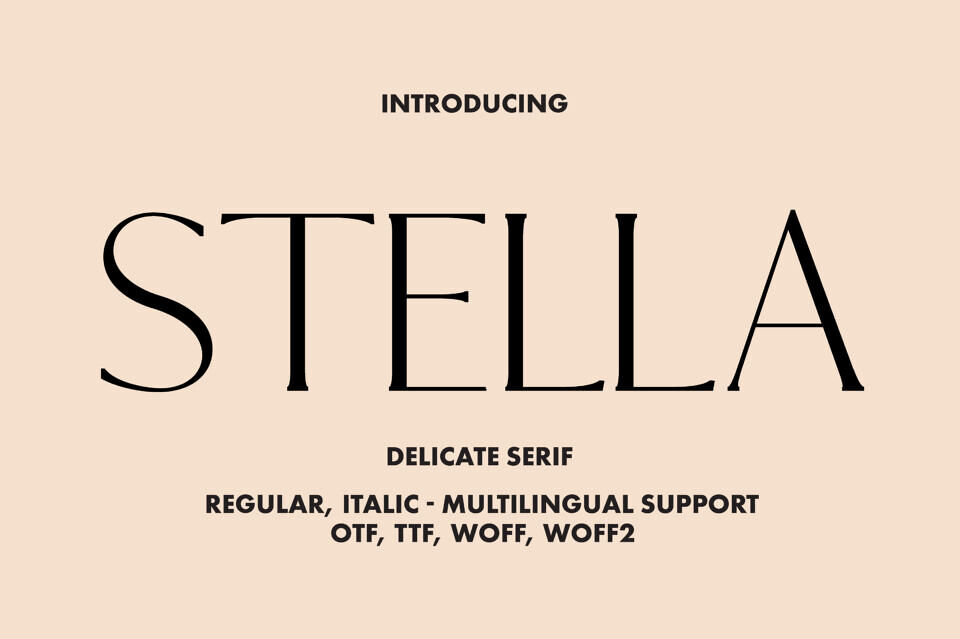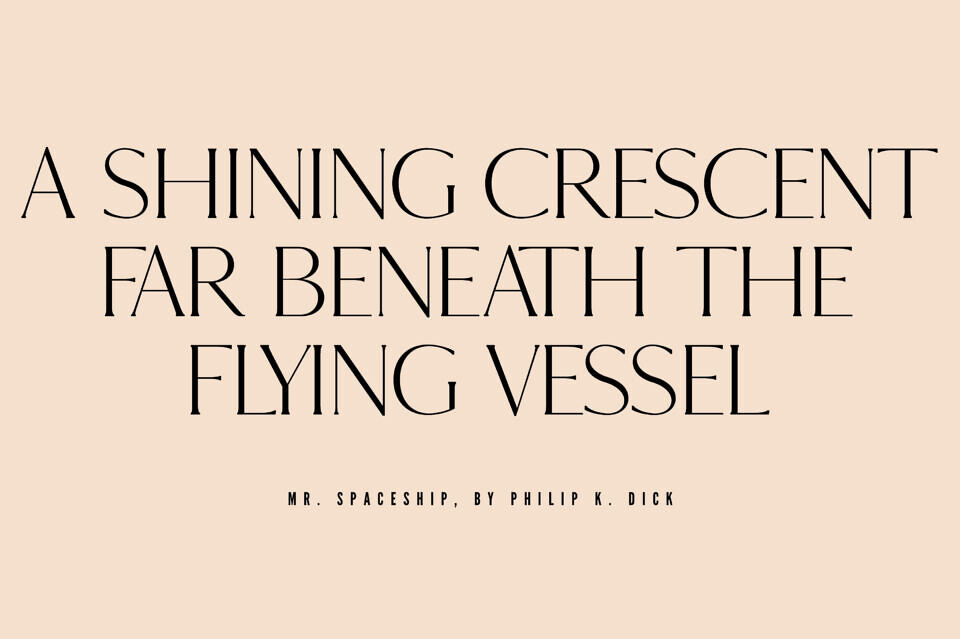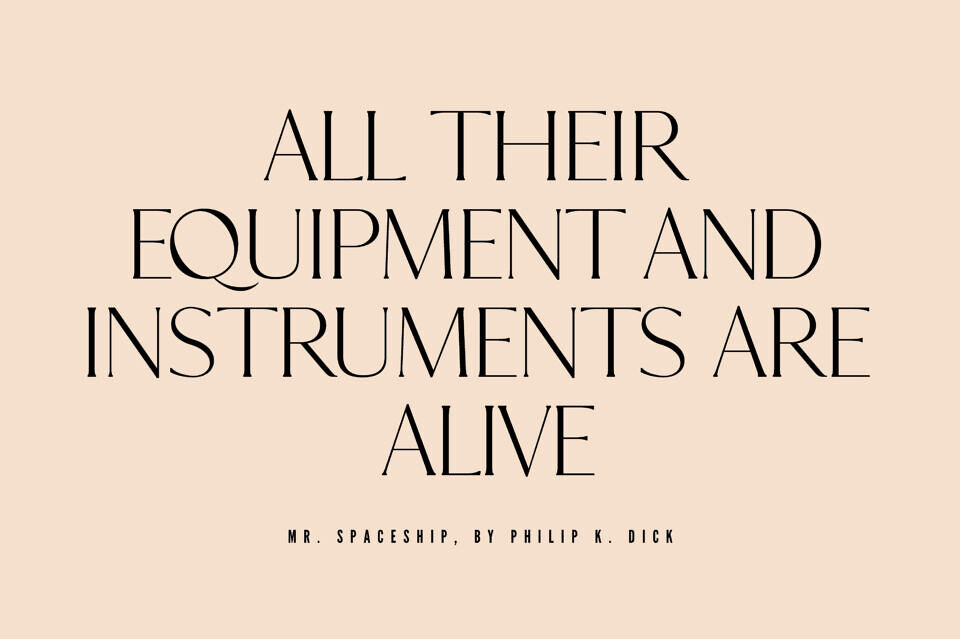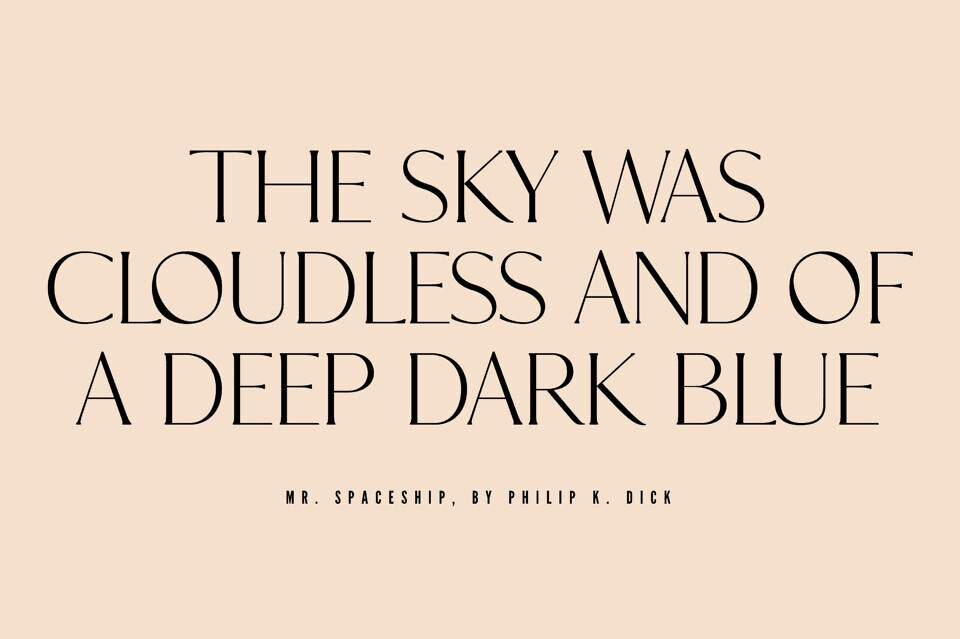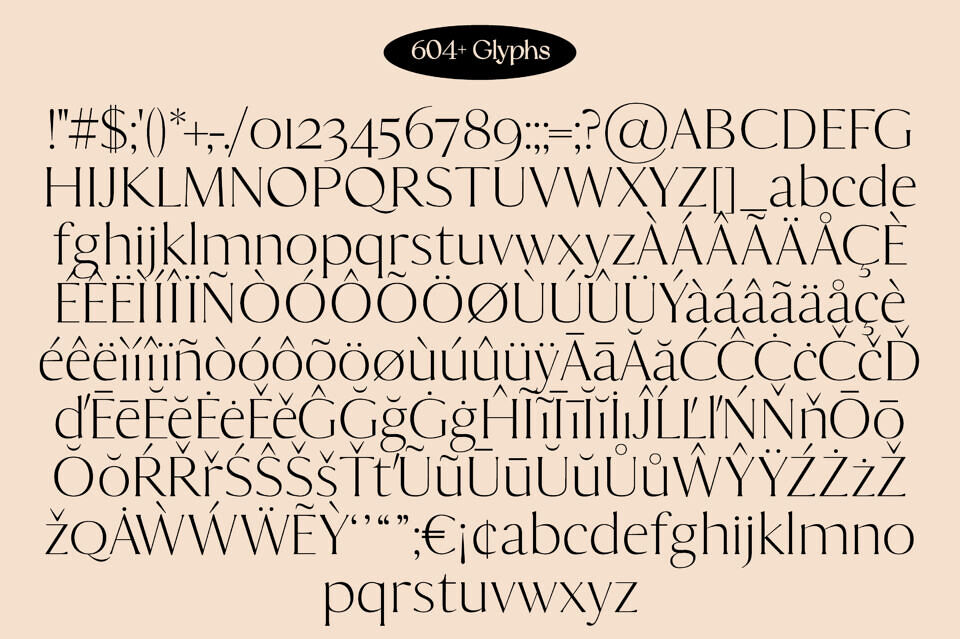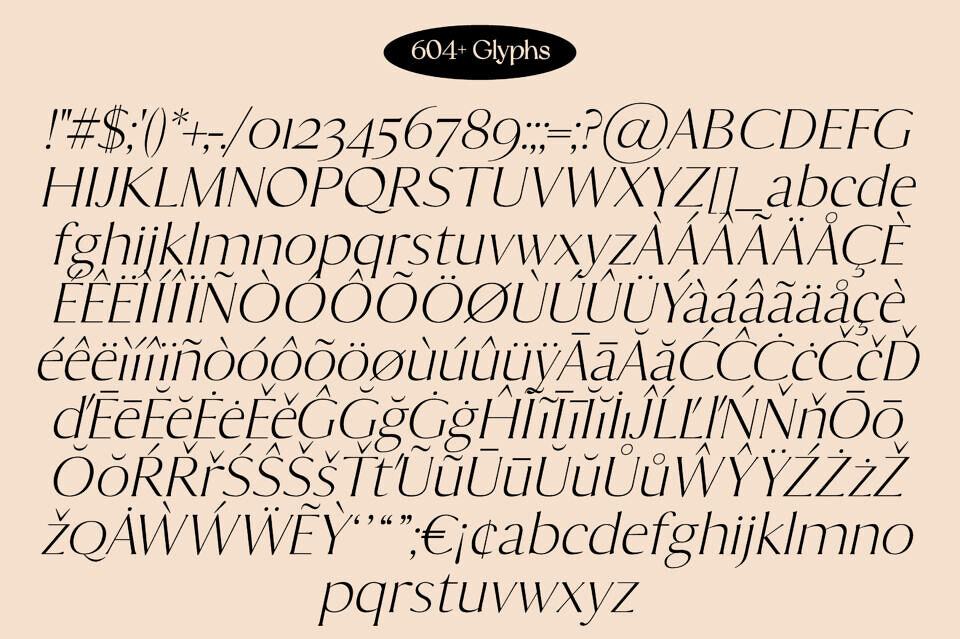
Stella is a chic, elegant, and delicate serif typeface designed to bring timeless elegance to your creative projects. With its graceful letterforms and meticulous detailing, Stella adds sophistication to any design.
Its versatility makes it suitable for various applications, and its classic design ensures lasting appeal. Choose “Stella” to infuse your work with a touch of timeless beauty and create unforgettable typography that captivates your audience.